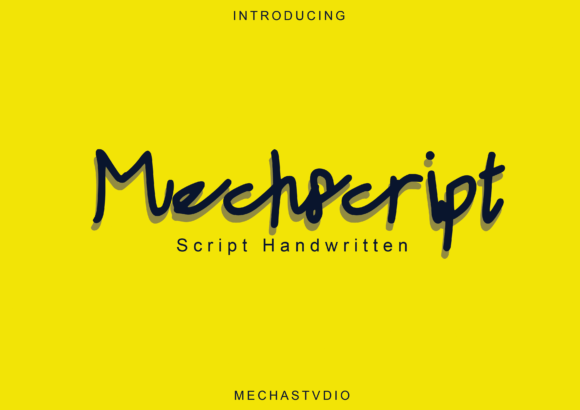
Calling all aspiring designers! Unleash your creativity with the captivating Mechscript font, a meticulously crafted masterpiece that will elevate your designs to new heights. This exceptional script font boasts a delicate touch, flowing gracefully like a gentle breeze. Its enchanting curves and playful angles evoke a sense of wonder and whimsy, making it the perfect choice for adding a touch of magic to your projects.
Step into a world where imagination knows no bounds as you explore the endless possibilities offered by Mechscript. Whether you're designing enchanting invitations, captivating social media posts, or eye-catching logos, this font will effortlessly transform your creations into unforgettable works of art.
Experience the transformative power of Mechscript, a font that will ignite your passion and inspire your designs. Dive into a world of infinite creativity, where your imagination takes center stage and your designs leave an unforgettable mark.